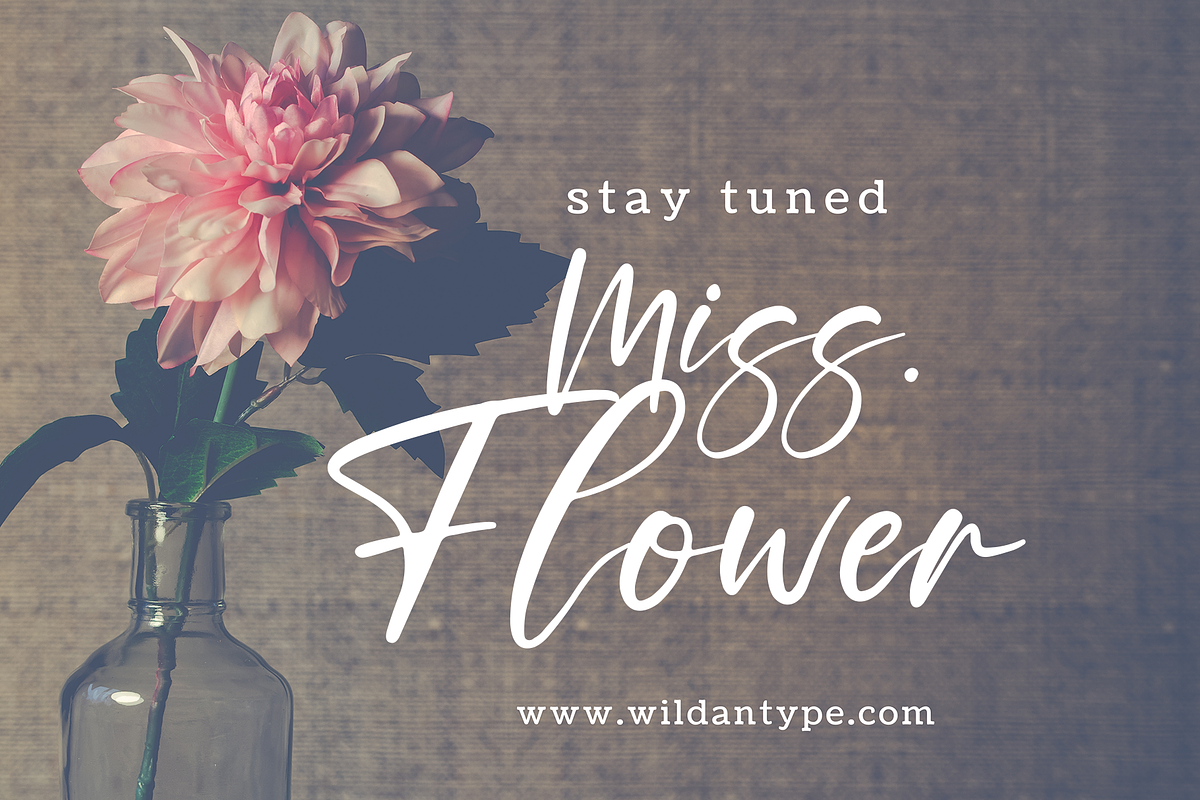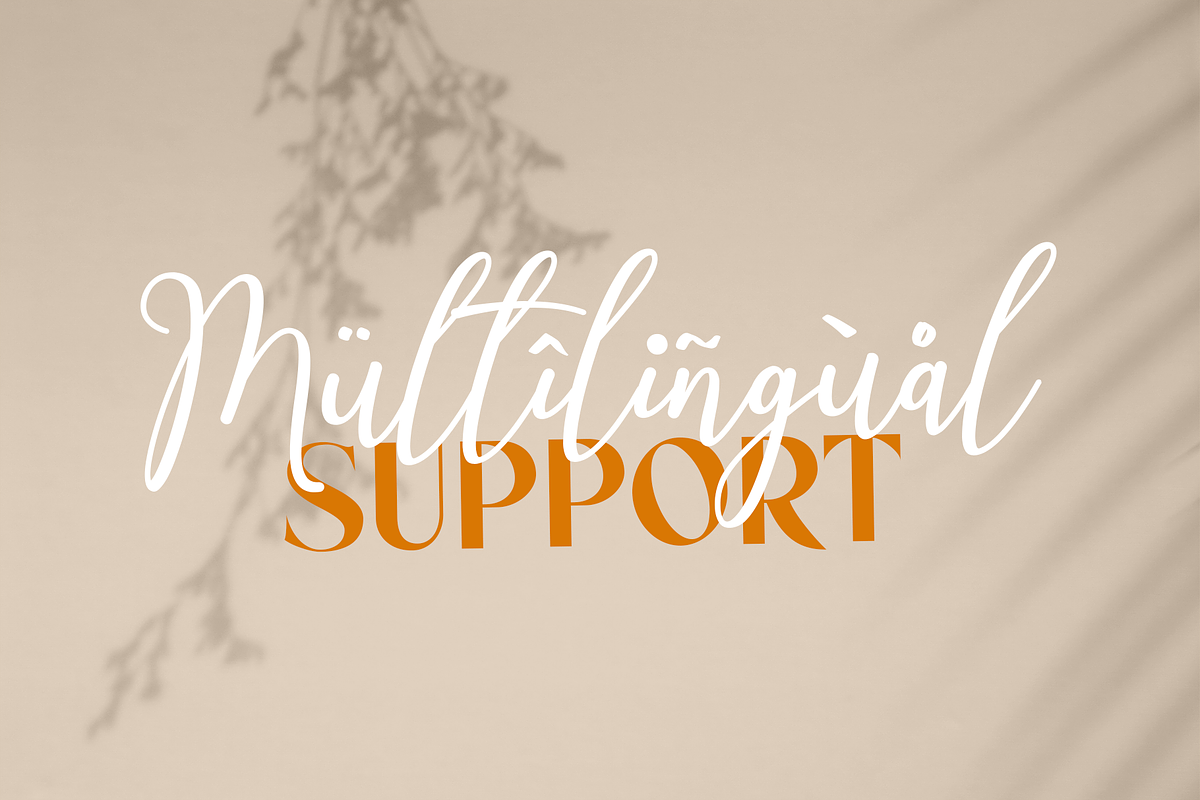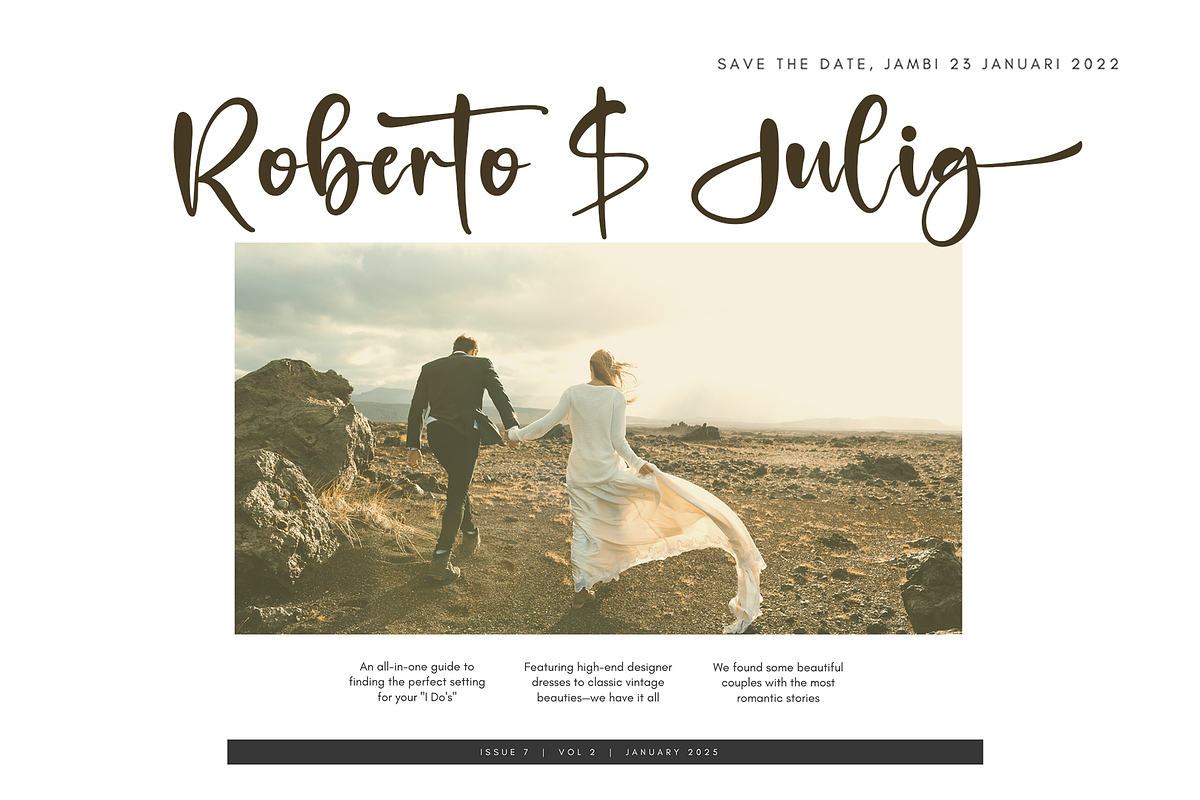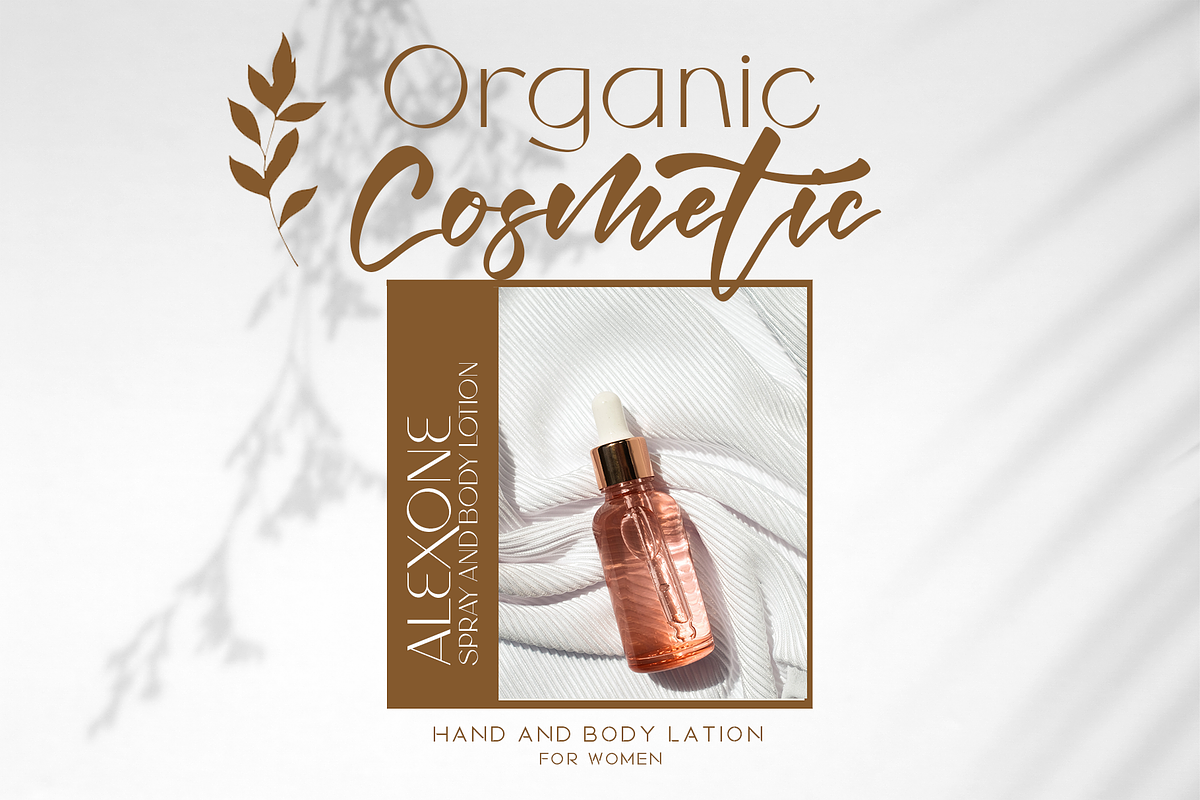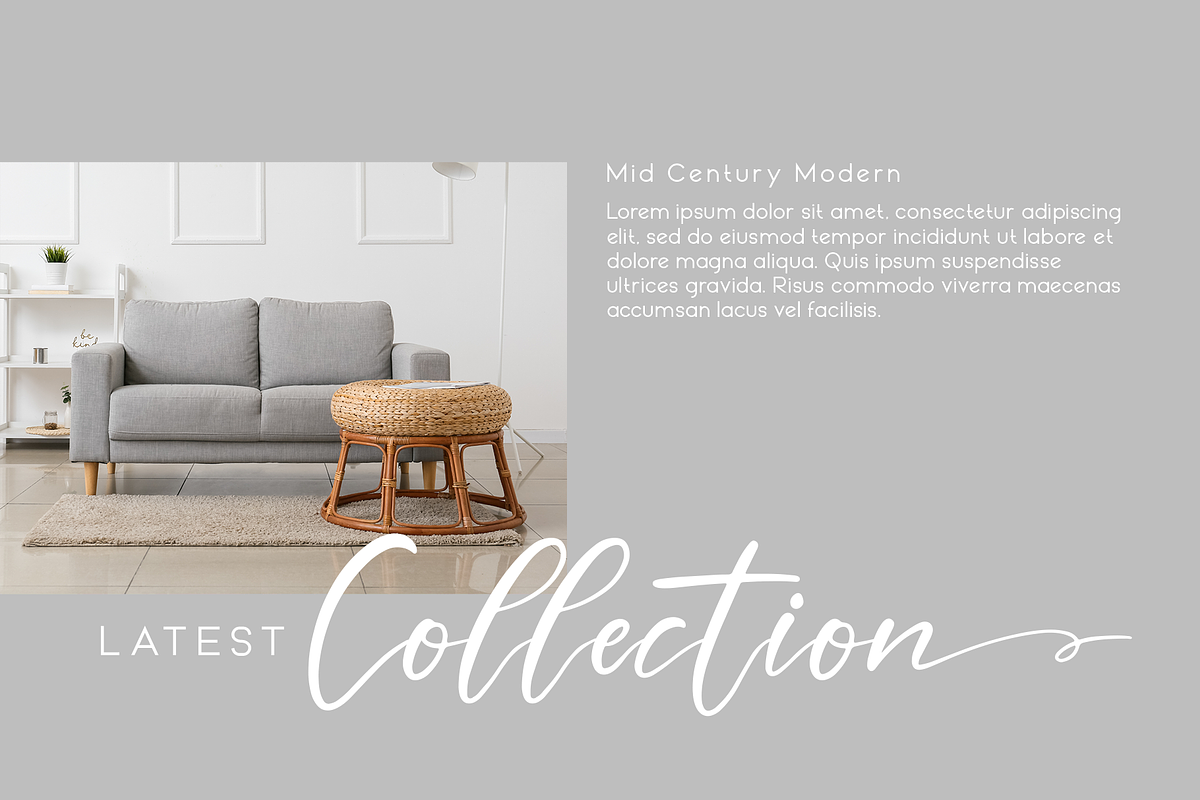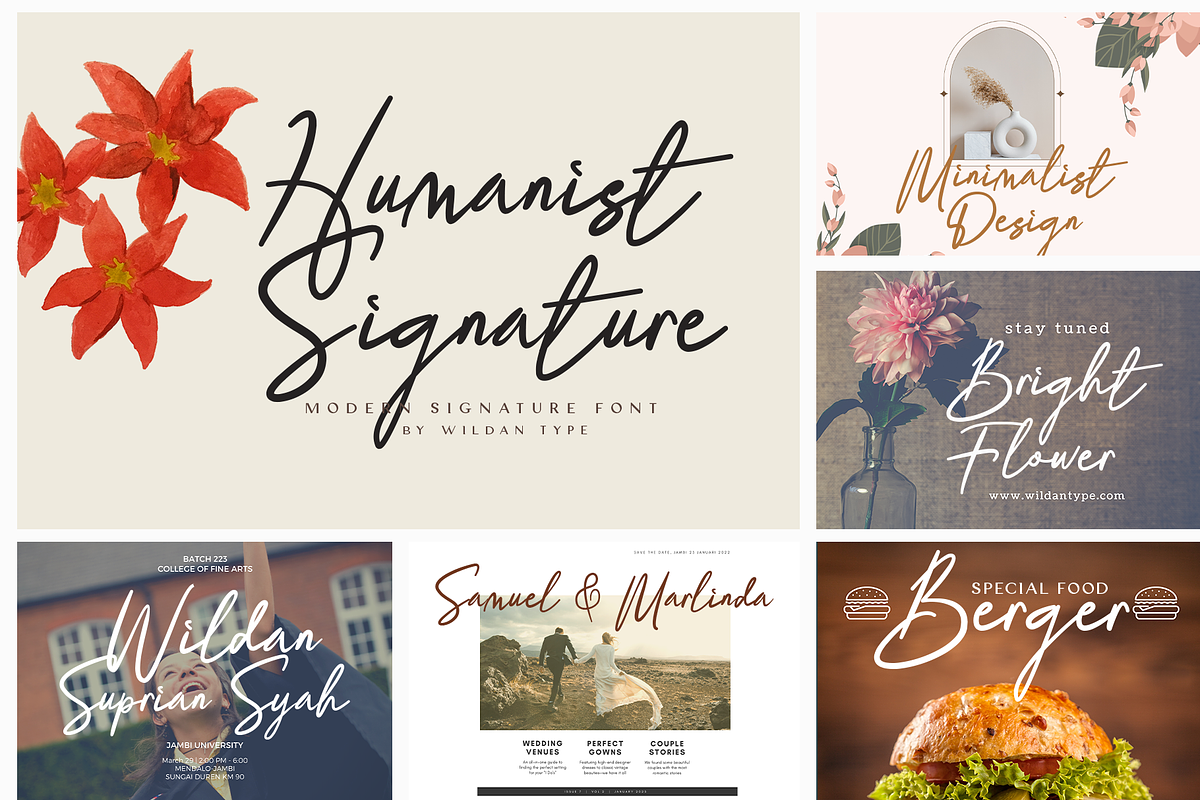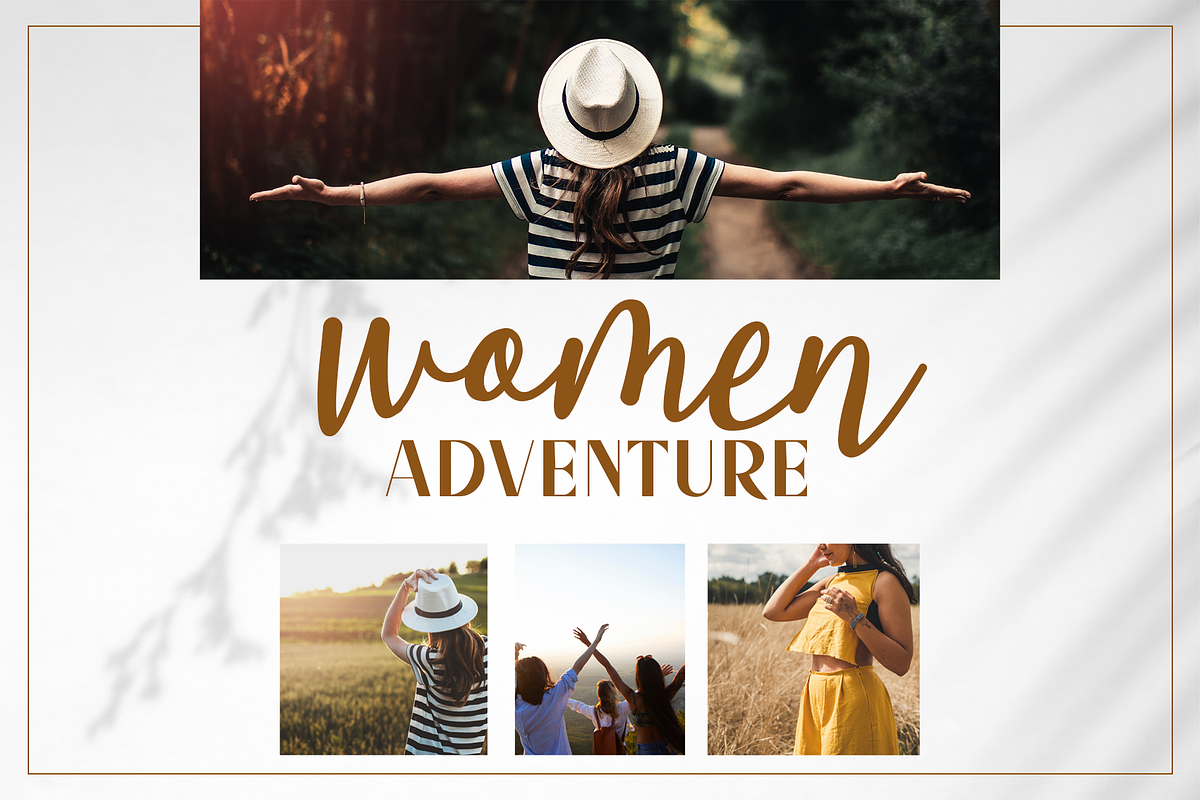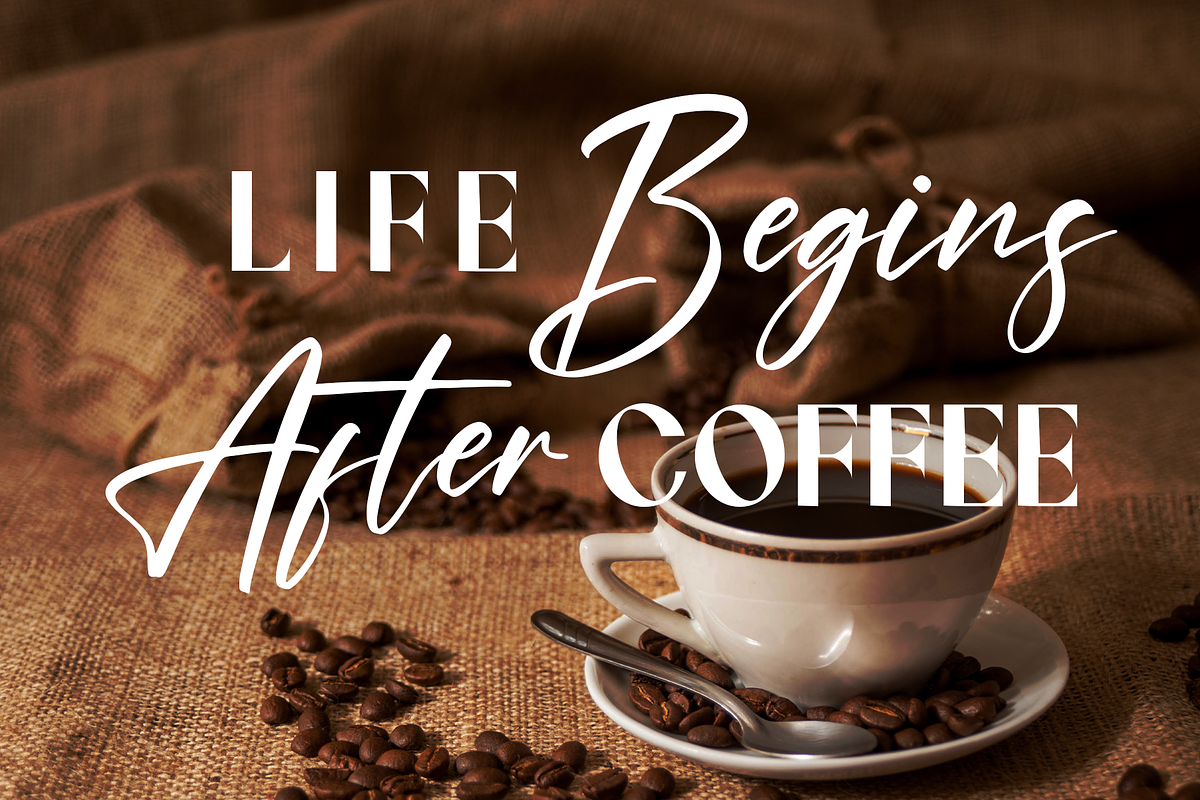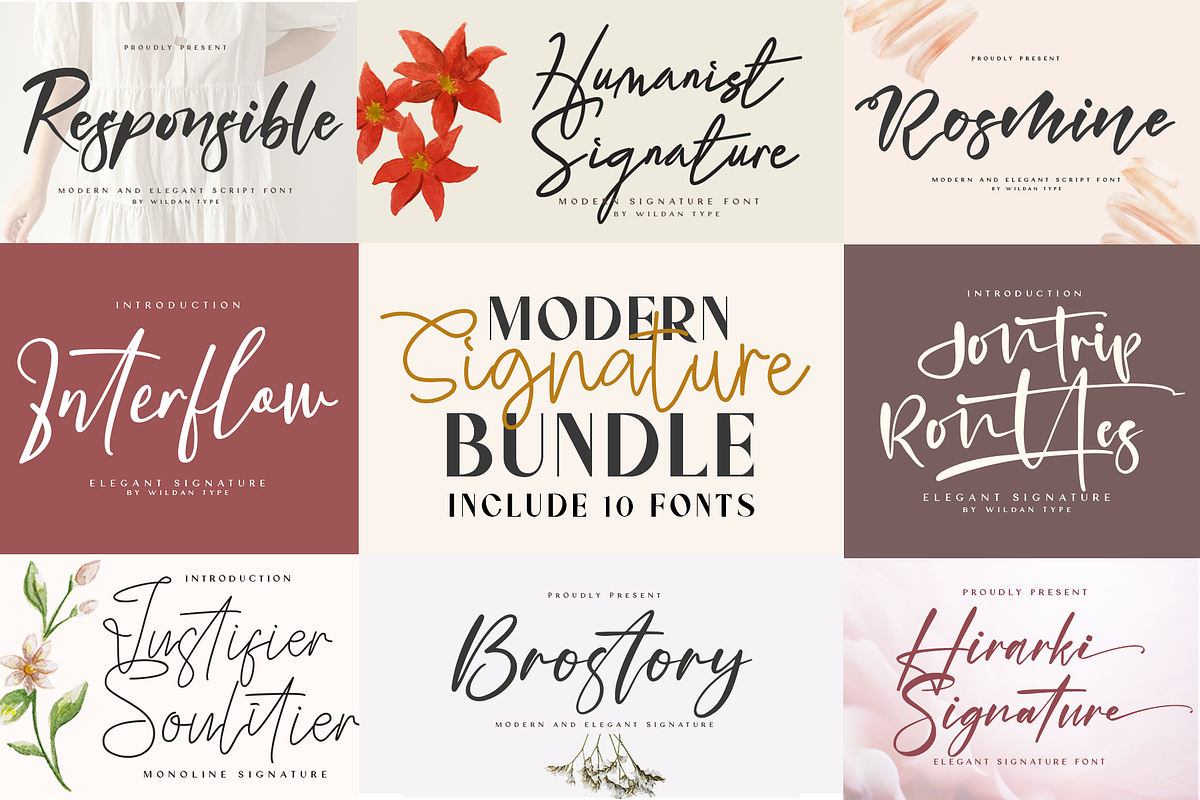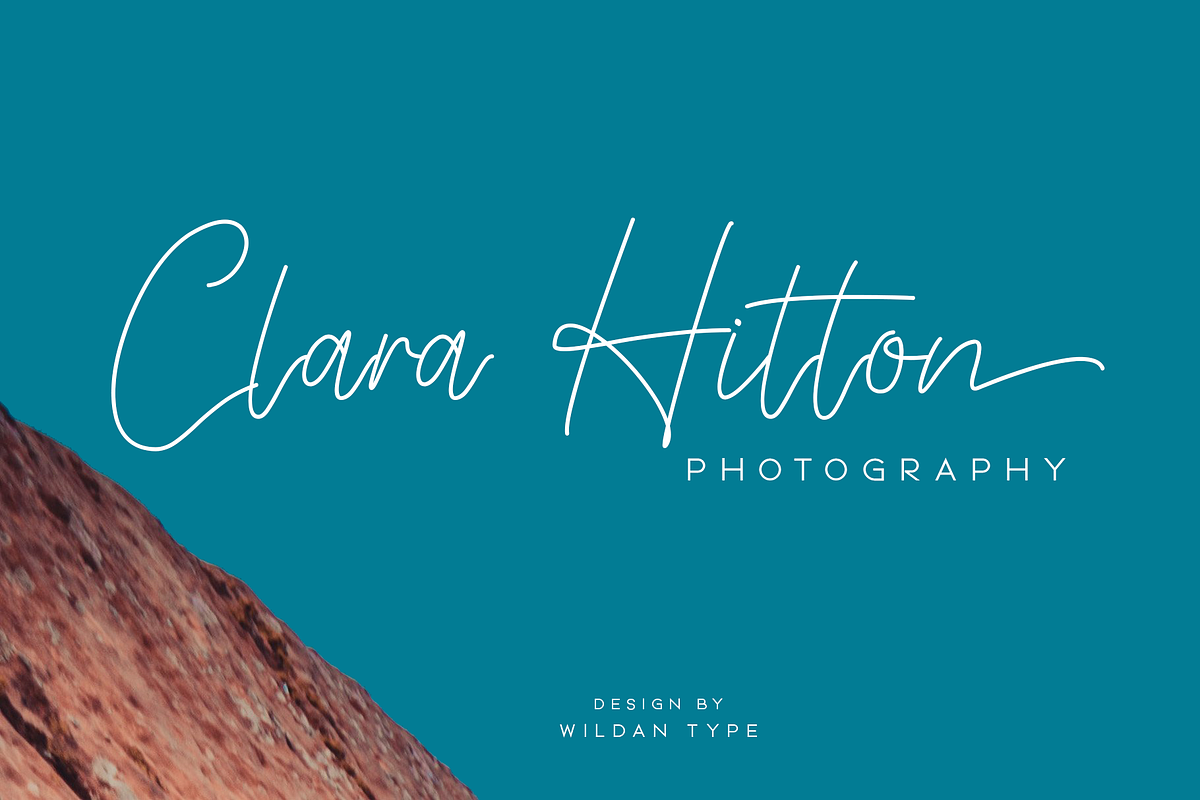
Modern Signature Bundle
Modern Signature Bundle!
Grab these 10 installable fonts in one download, for a huge saving! These fonts were all Script Signature with a pen and brosuh pen. Suitable for your project design like branding, Wedding, logo, magazine. The 10 fonts included are:
- Brostory
- Esmargo
- Hirarki Signature
- Humanist Signature
- Interflow
- Jontrip Ronttes
- Justifiers Souliter
- Responsible
- Rogland 10.Rosmine